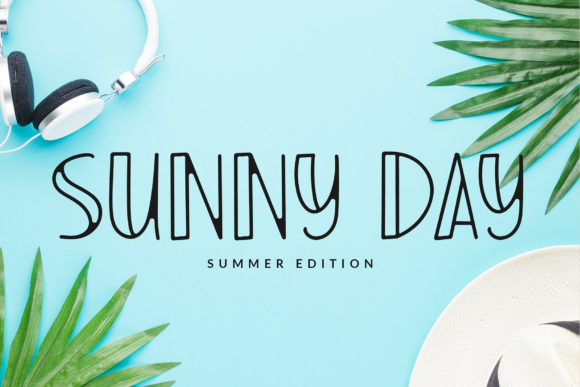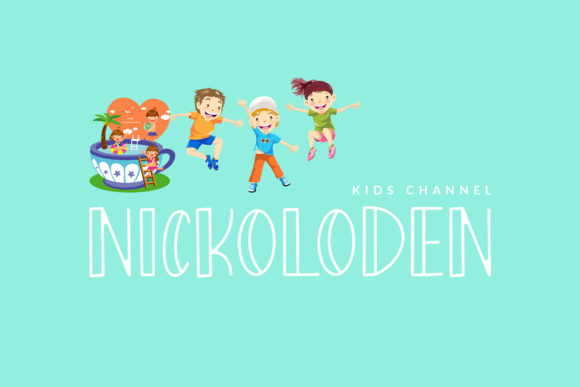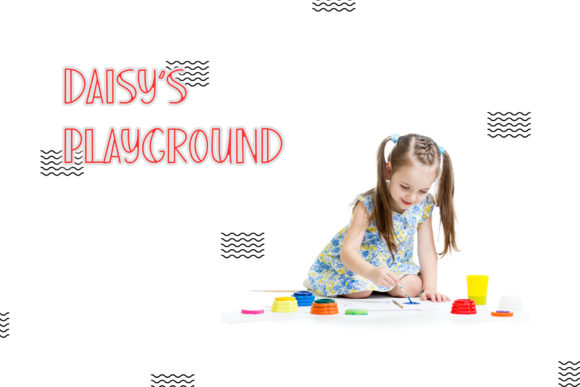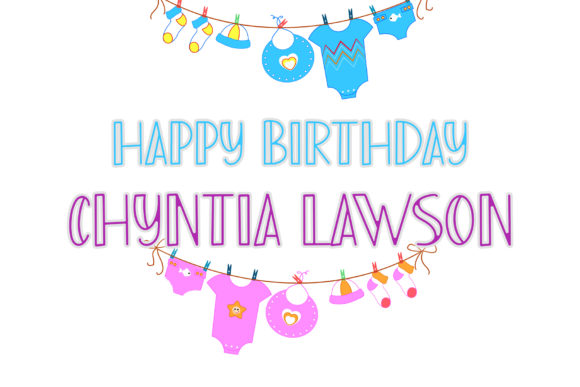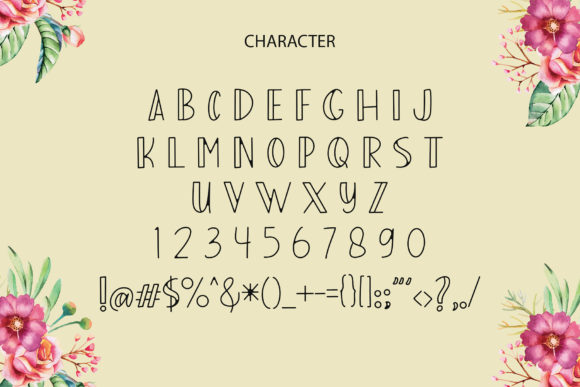
Introducing Adelah Font: The Ultimate Display Font for Creative Projects
Are you tired of using the same old fonts for your creative projects? Look no further than Adelah Font, a unique and enchanting display font that embodies fun, quirkiness, and authenticity. With its playful and distinctive style, Adelah is sure to turn any creative idea into a true standout.
The Personality of Adelah Font
Adelah Font is not just a font, it’s a statement. It’s perfect for designers and crafters who want to add a touch of whimsy and personality to their projects. Whether you’re working on a crafting project, a graphic design project, or a digital illustration, Adelah Font is sure to bring a smile to your face and inspire your creativity.
What Makes Adelah Font So Special?
So, what sets Adelah Font apart from other fonts? Here are just a few things that make it so special:
- Unique Playfulness: Adelah Font has a one-of-a-kind playful style that’s sure to capture attention. Its distinctive letterforms and quirky charm make it perfect for projects that need a bit of personality.
- Authenticity: Adelah Font is genuine and true to itself. It’s not a font that’s trying to be something it’s not – it’s just a fun and quirky font that’s perfect for creative projects.
- Versatility: Despite its playful style, Adelah Font is surprisingly versatile. It can be used for a wide range of projects, from crafting and scrapbooking to graphic design and digital illustration.
How to Use Adelah Font in Your Projects
Adelah Font is incredibly easy to use, and it can add a touch of personality to any project. Here are a few ideas for using Adelah Font:
- Crafting Projects: Adelah Font is perfect for crafting projects like scrapbooking, card making, and journaling. Use it to add a playful touch to your titles, headings, and captions.
- Graphic Design Projects: Adelah Font is also great for graphic design projects like posters, flyers, and brochures. Use it to add a bit of whimsy and personality to your designs.
- Digital Illustration: Adelah Font is a great addition to digital illustrations, especially those with a playful or quirky theme. Use it to add a touch of personality to your characters, titles, and captions.
Tips for Getting the Most Out of Adelah Font
Here are a few tips for getting the most out of Adelah Font:
- Experiment with Different Sizes: Adelah Font looks great in a variety of sizes, from small captions to large headings. Experiment with different sizes to find the one that works best for your project.
- Pair it with Other Fonts: Adelah Font pairs well with a variety of other fonts, from simple sans serifs to more decorative scripts. Experiment with different pairings to find the one that works best for your project.
- Use it to Add Emphasis: Adelah Font is perfect for adding emphasis to your text. Use it to highlight important information, or to add a touch of personality to your titles and headings.
Adelah Font is a unique and enchanting display font that’s perfect for designers and crafters who want to add a touch of fun, quirkiness, and authenticity to their projects. With its playful and distinctive style, Adelah Font is sure to turn any creative idea into a true standout. So why not give it a try and see what amazing projects you can create?